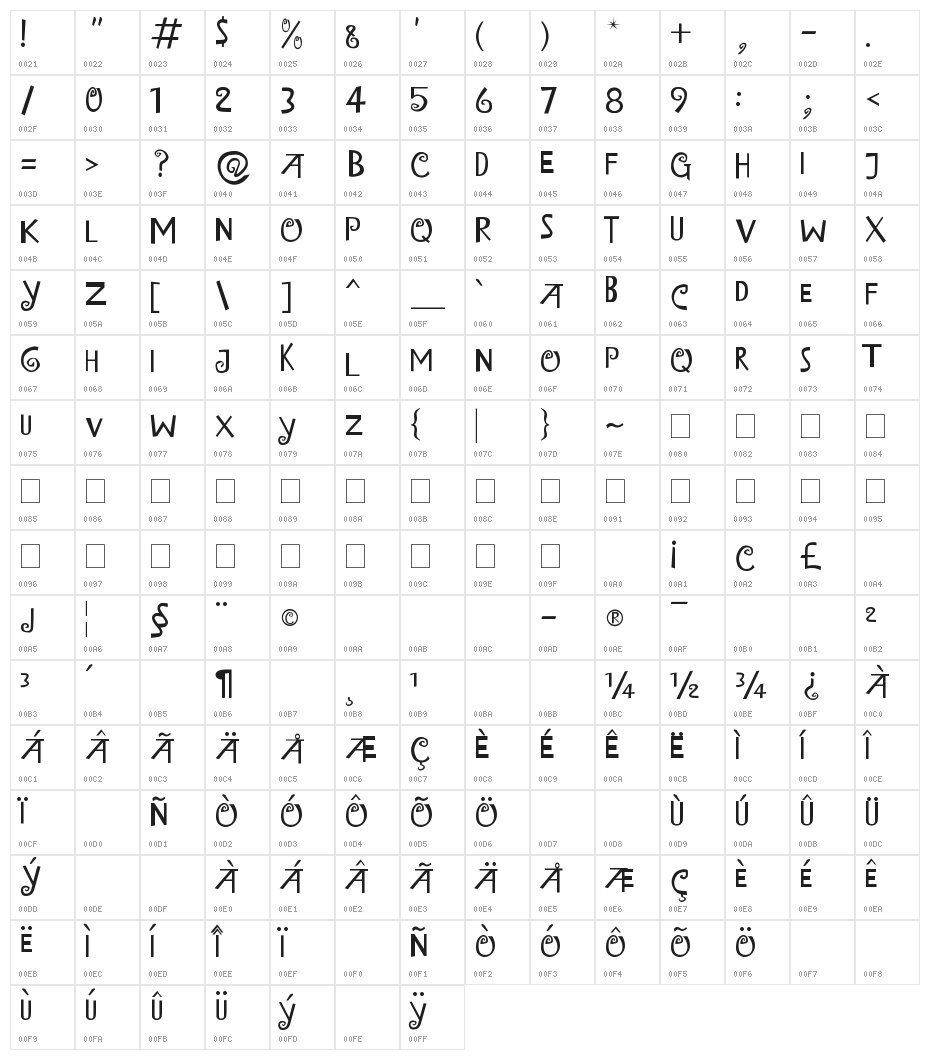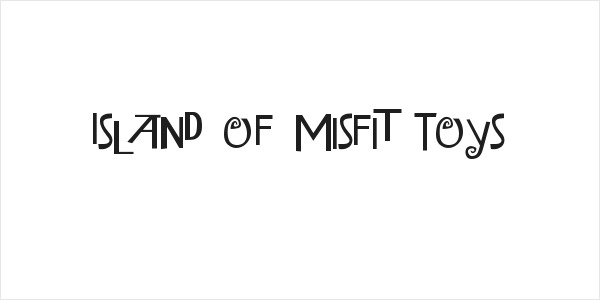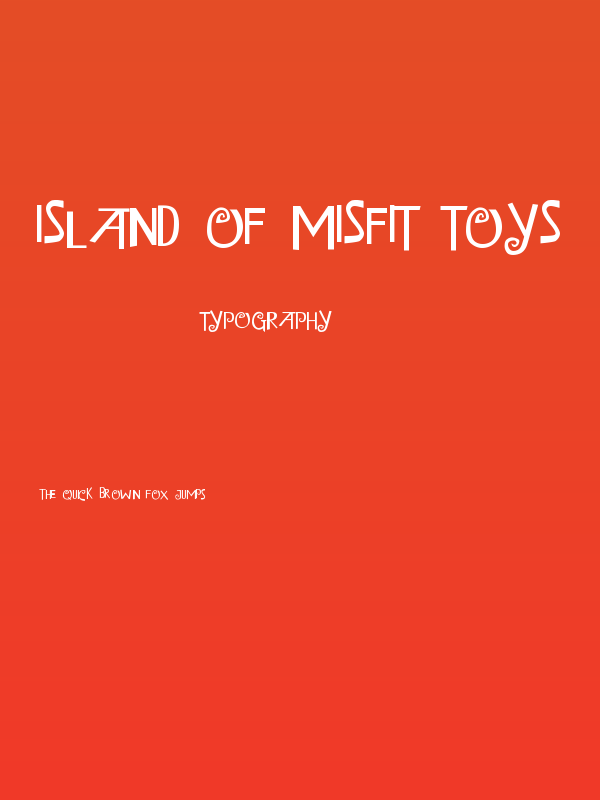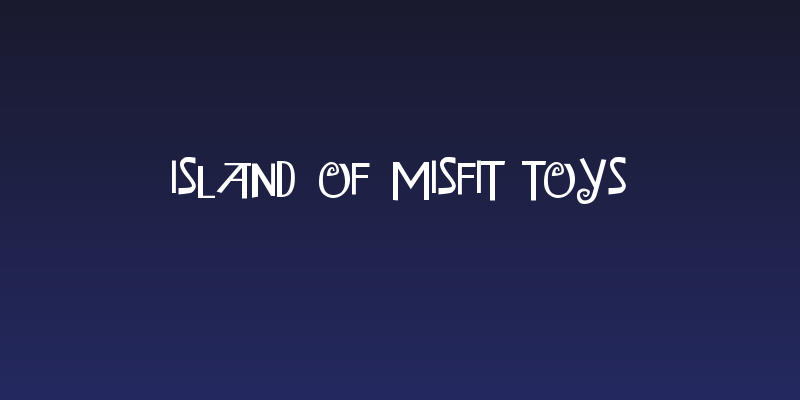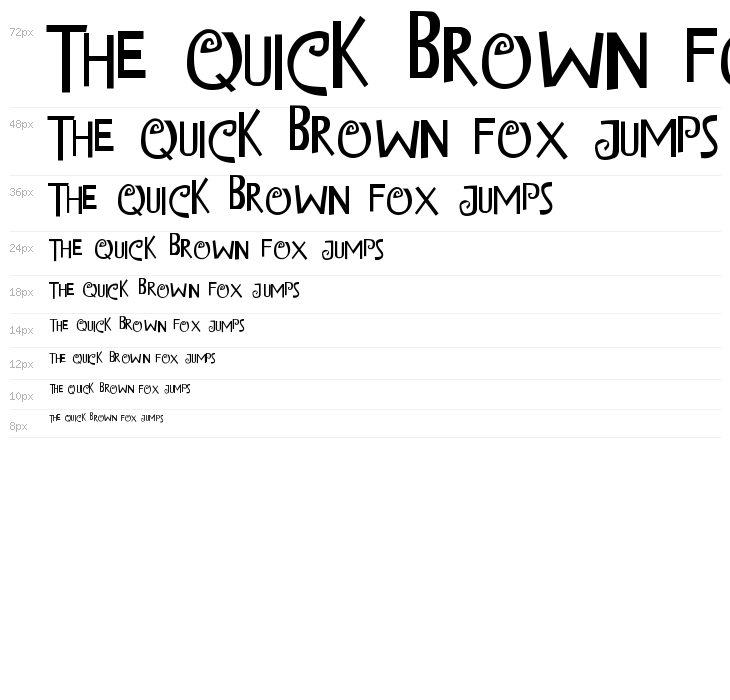
Island of Misfit Toys Font
Island of Misfit Toys Description
This font features a playful and whimsical design, characterized by its unique and quirky letterforms. The uppercase letters are bold and slightly irregular, with some characters incorporating spiral or curved elements that add a sense of fun and creativity. The lowercase letters maintain this playful style, with a mix of straight and curved lines that create a dynamic and lively appearance. The numerals are bold and consistent with the overall style, while the special characters add a touch of flair with their distinctive shapes. This font is perfect for projects that require a touch of whimsy and creativity, making it ideal for children's books, playful branding, or festive invitations.
Overall StyleWhimsical, Playful
Use CaseHeadlines, Logos, Invitations
Proposed ProjectsIdeal for children's books, playful branding, festive invitations, and creative projects.